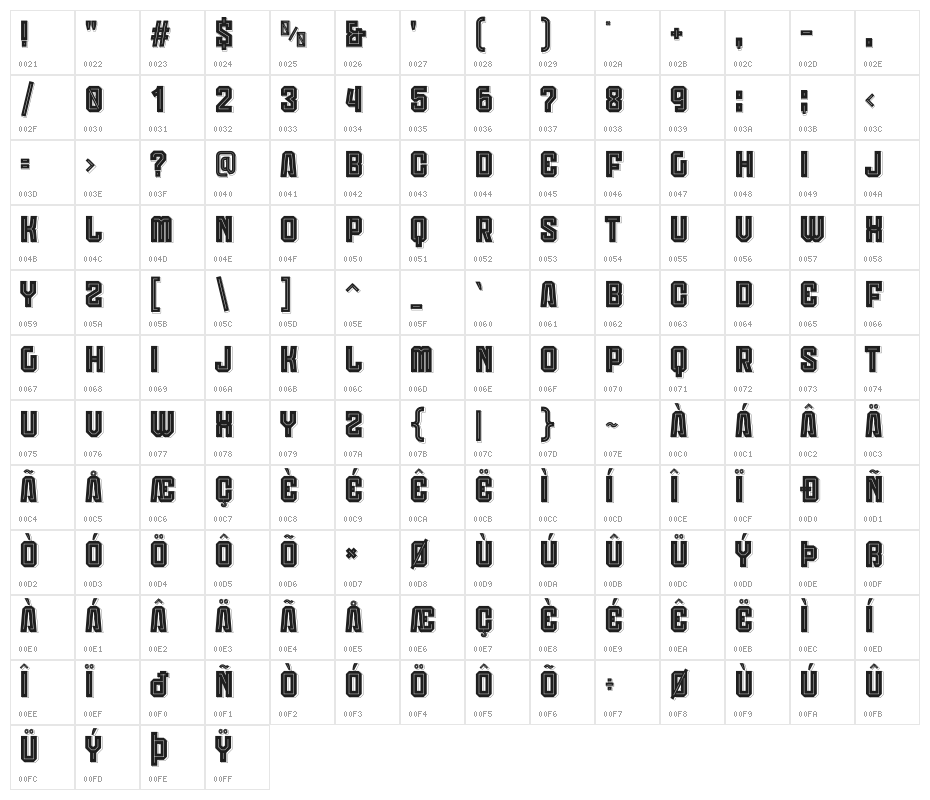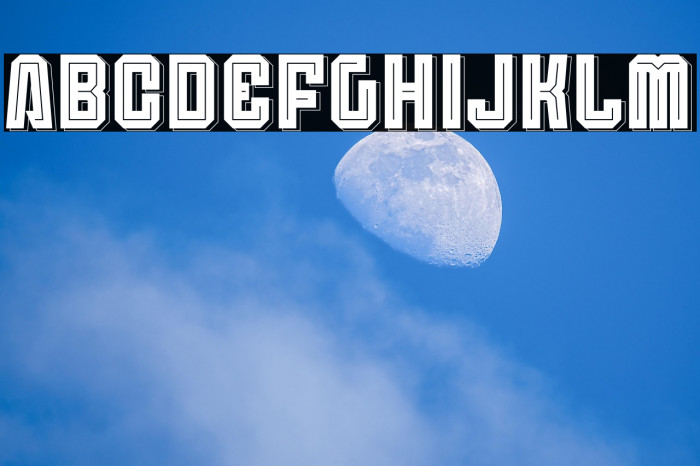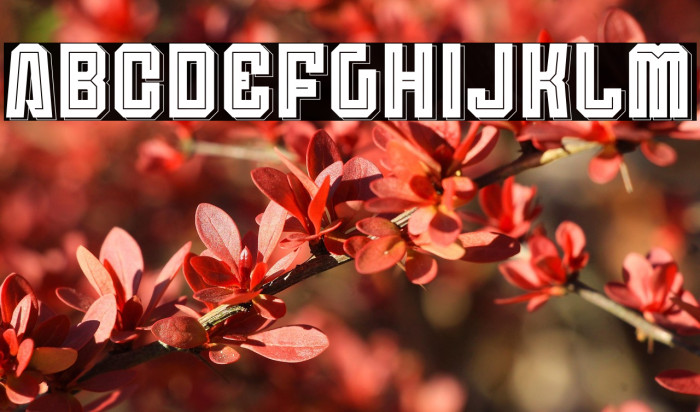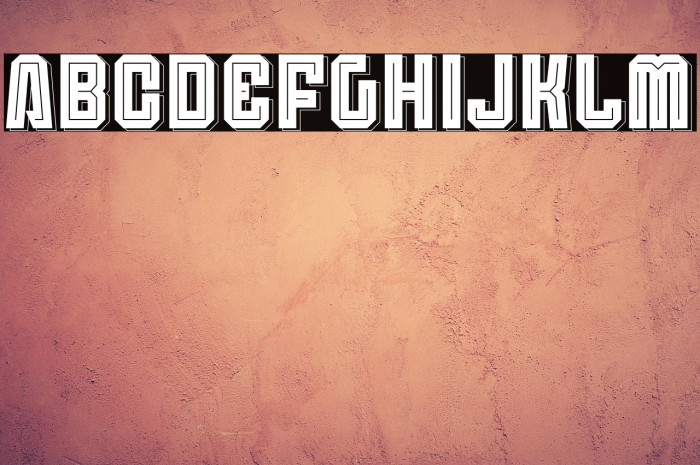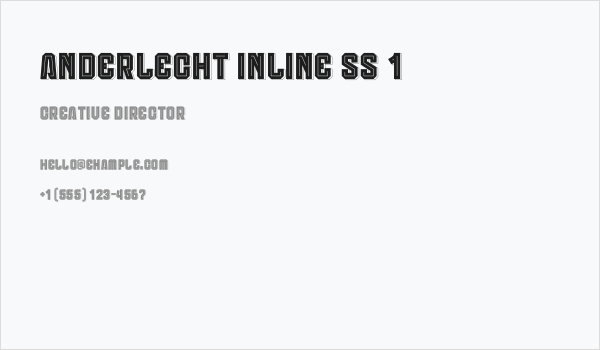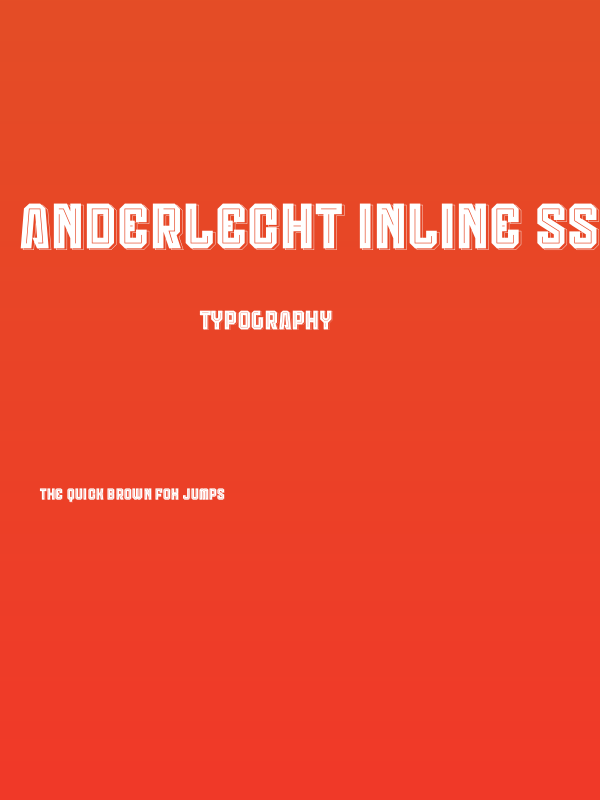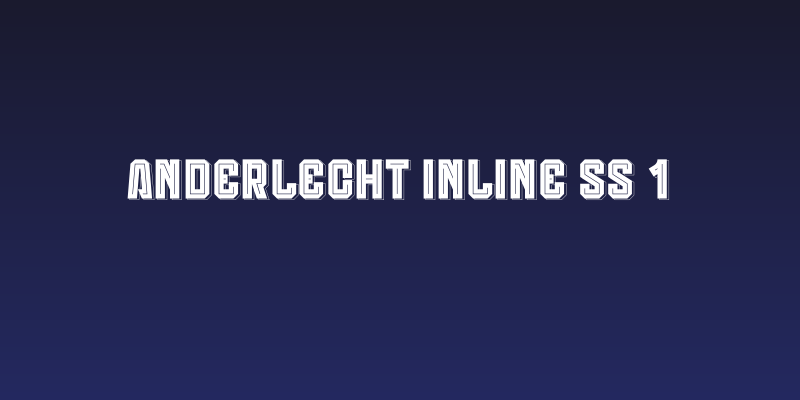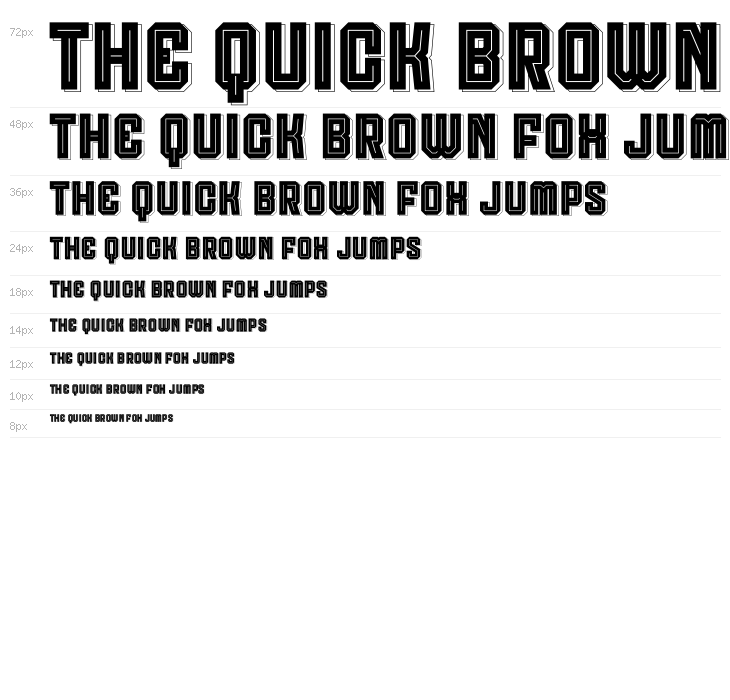
Anderlecht Inline SS 1 Font
Anderlecht Inline SS 1 Description
This font features a bold, decorative style with a distinct inline design that adds depth and dimension to each character. The uppercase letters are robust and angular, with sharp edges and a geometric structure. The numbers and special characters maintain this bold aesthetic, ensuring consistency across all glyphs. The inline detail creates a striking visual effect, making it ideal for attention-grabbing headlines or titles. The font's unique style is both modern and retro, offering versatility for various design projects.
| Proposed Projects | Ideal for posters, logos, branding, and any project requiring a bold, eye-catching typeface. |